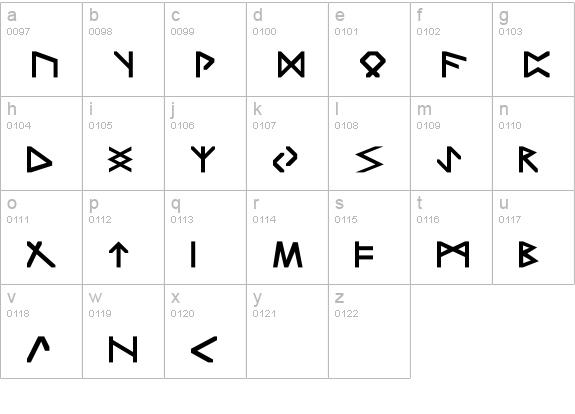
Trondheim-Norma Font Details
Trondheim-Norma is a stunning and versatile font that effortlessly combines modernity with elegance. With its clean lines and sleek curves, this typeface exudes a sense of sophistication that is sure to captivate any audience. But what makes Trondheim-Norma truly remarkable is the fact that it is available for free. That's right, this exceptional font can be downloaded at no cost from FontsMarket.com. This means that anyone can access and enjoy the beauty and versatility of Trondheim-Norma without breaking the bank. Whether you're working on a professional project, designing a logo, or simply looking to add a touch of class to your personal documents, Trondheim-Norma is the perfect choice. Its timeless appeal and wide range of weights and styles make it incredibly adaptable, ensuring that it will always complement and enhance any text or design. The attention to detail in Trondheim-Norma is evident in every character, from the carefully crafted letterforms to the perfectly balanced spacing. This font stands out from the crowd, effortlessly commanding attention while maintaining a sense of harmony and balance. With Trondheim-Norma, you can bring your creative vision to life with ease. Whether you're looking to create bold headlines or elegant body text, this font has the versatility to handle any task. Its legibility and clarity ensure that your message will always be conveyed with the utmost clarity and impact. Don't miss out on the opportunity to enhance your designs with Trondheim-Norma. Download this exceptional font for free at FontsMarket.com and experience the beauty and versatility that this font has to offer. Elevate your typography game and make a lasting impression with Trondheim-Norma.